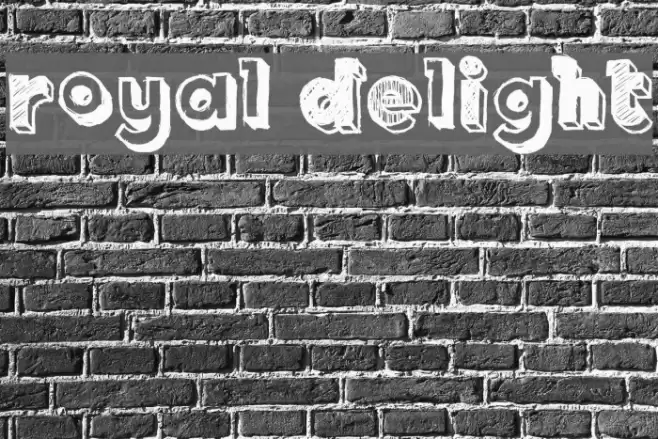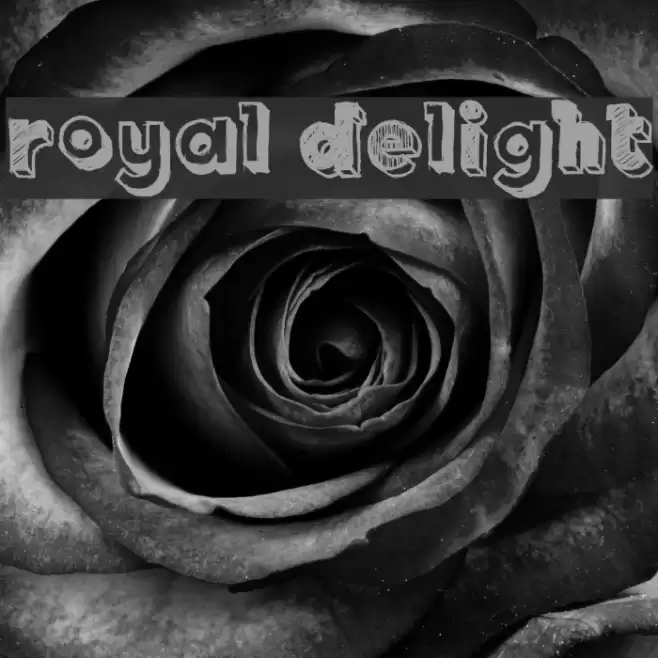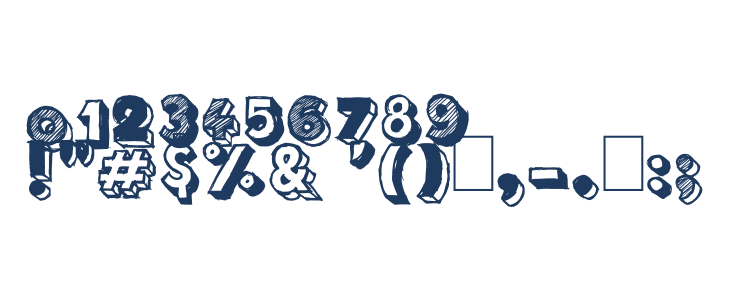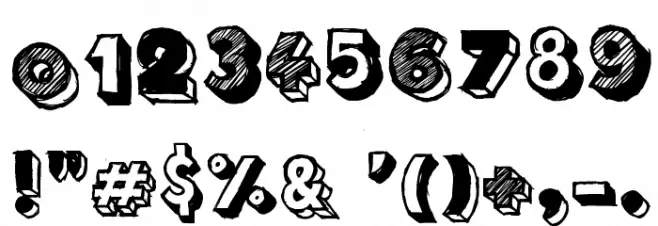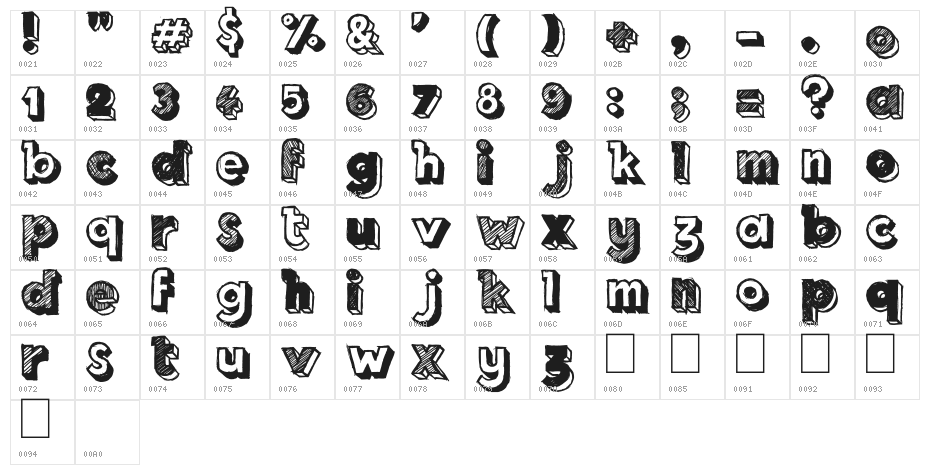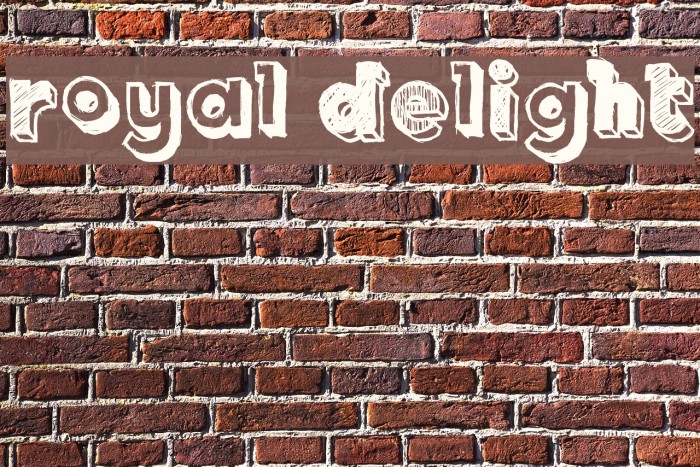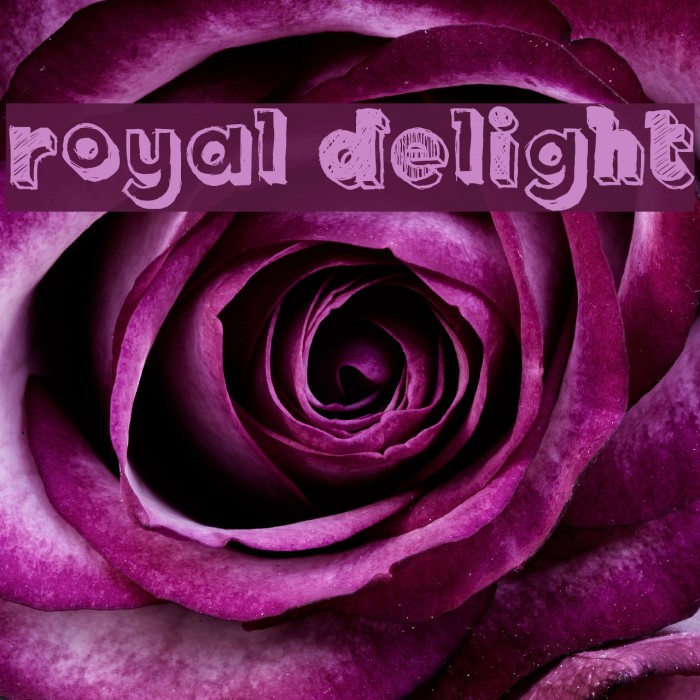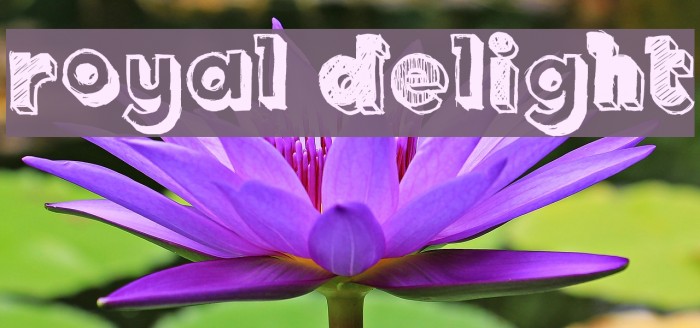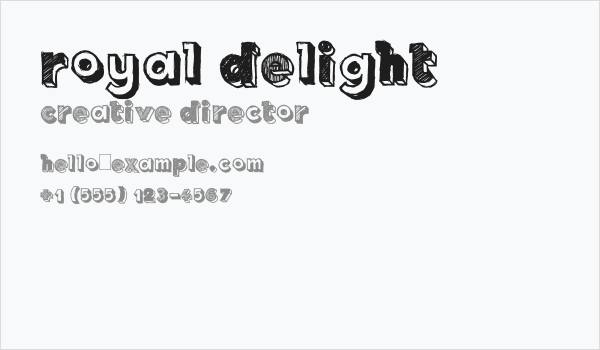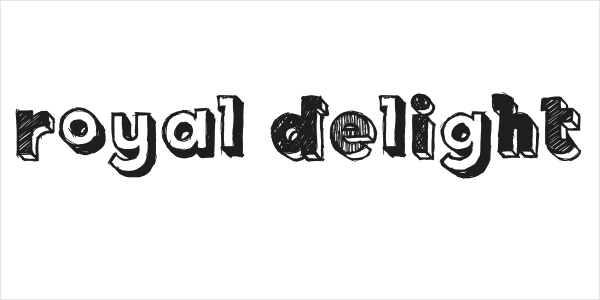
Royal Delight Font
Royal Delight Description
This font features a bold, playful style with a hand-drawn aesthetic. Each character is filled with intricate, sketch-like details that give it a textured, artistic appearance. The letters are bold and have a three-dimensional effect, with shadows that add depth and a sense of movement. The overall look is dynamic and eye-catching, making it suitable for creative and informal projects. The font includes a full set of uppercase and lowercase letters, numbers, and a variety of special characters, all maintaining the same artistic style.
A bold, hand-drawn font with a textured, artistic style from Uncategorized fonts.
- Proposed Projects: Ideal for posters, children's books, creative branding, and playful graphic designs.
- Overall Style: Playful, Artistic